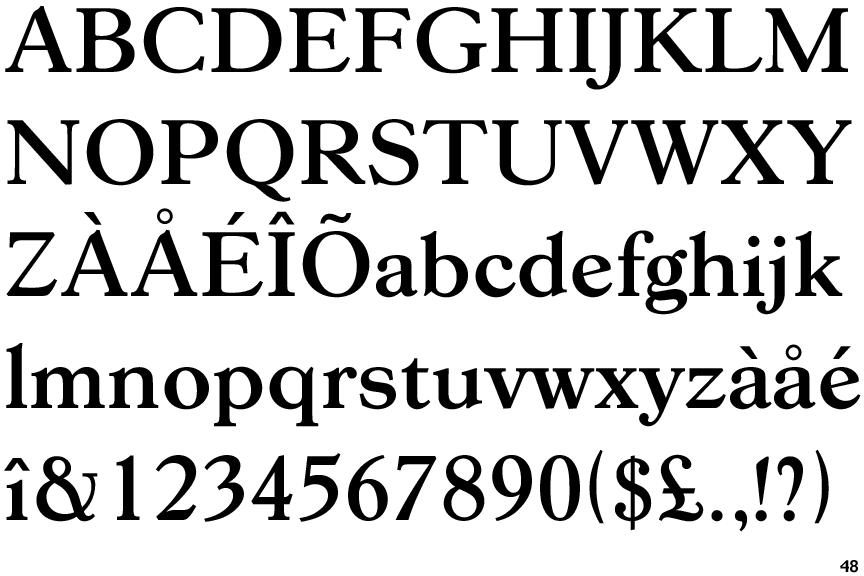
Web goudy 38™ by red rooster collection. Elegant, yet surprisingly hardy, goudy old style has never gone out of fashion. If you really want goudy 38 ™ and you want to.